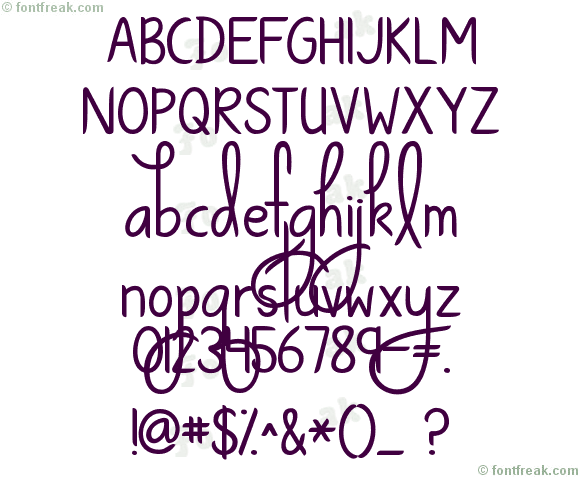
KG Ways to Say Goodbye is a charming handwritten font designed by Kimberly Geswein. This script font exudes a warm, personal touch that makes it perfect for a variety of creative projects. With its playful and informal style, it features smooth, flowing strokes that create an inviting feel. The stroke weight is consistent throughout, giving the font a balanced appearance, while the slightly varying line thickness adds character without being overwhelming. The spacing between letters is well-judged, allowing for easy readability while maintaining an artistic flair.
This font is particularly well-suited for wedding invitations, where its romantic and casual style can enhance the overall design. It also shines in greeting cards, adding a heartfelt touch to personal messages. Additionally, it's an excellent choice for social media graphics, helping content creators capture attention with its unique personality. Restaurant menus can benefit from this font as well, especially for highlighting specials or dessert items, creating a friendly and approachable vibe.
What sets the KG Ways to Say Goodbye font apart is its perfect blend of elegance and informality. It captures a sense of sincerity that resonates with audiences, making it an exceptional choice for anyone looking to convey warmth and creativity in their designs. For those interested, the KG Ways to Say Goodbye font free download is readily available, inviting users to explore its delightful possibilities.